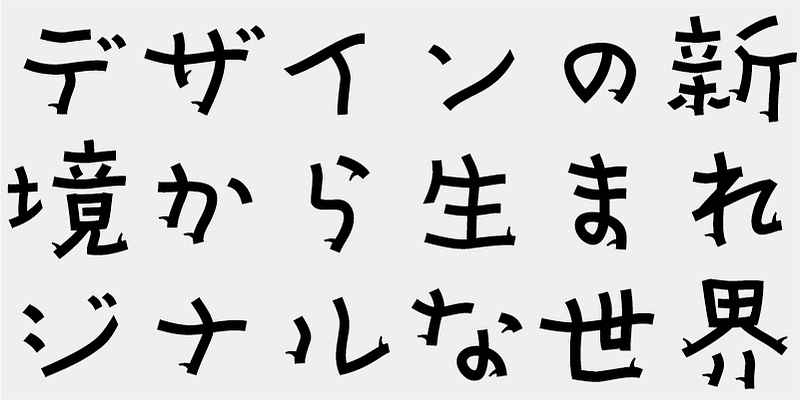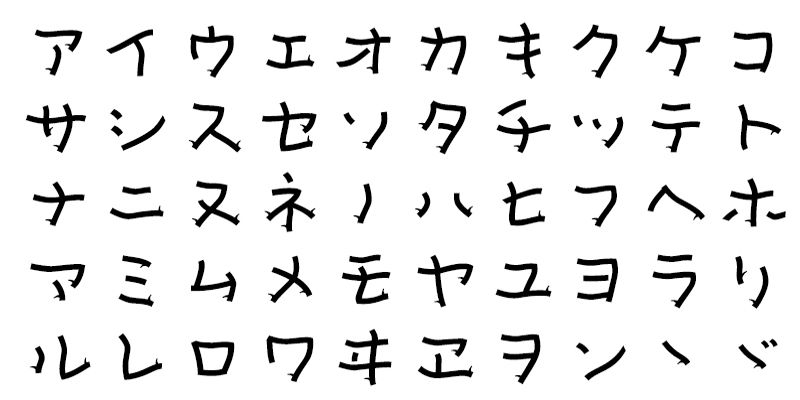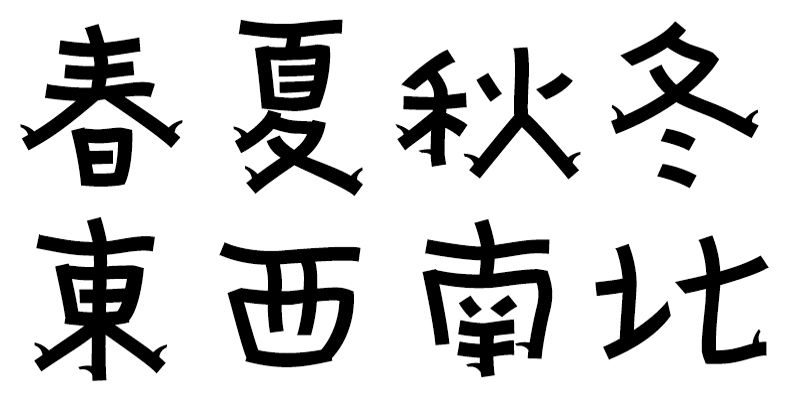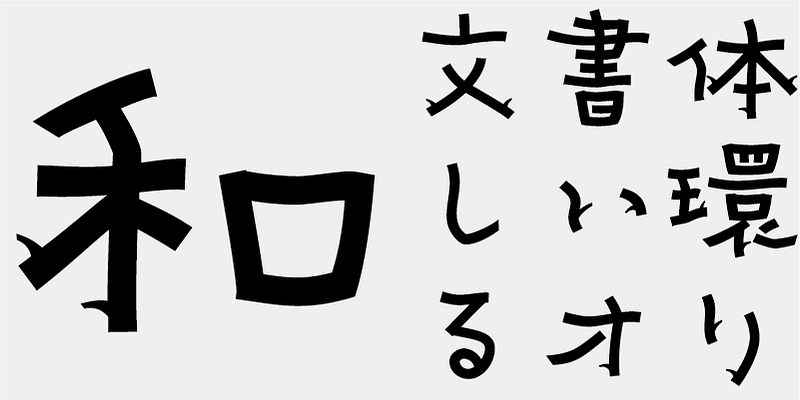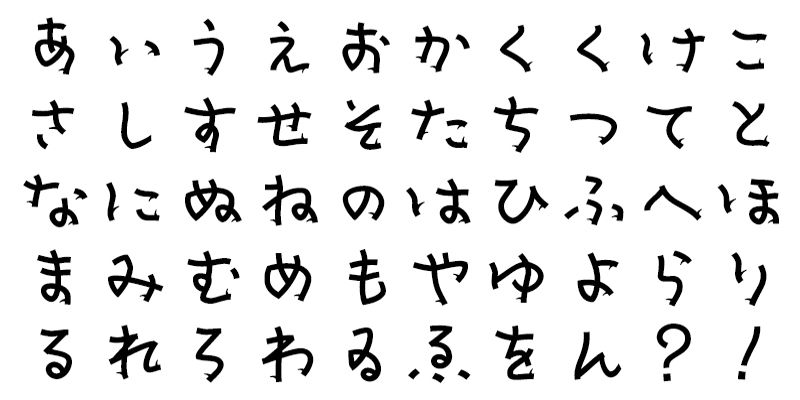
This typeface is based on characters hand-written with a brush. When this typeface was created, it was intended to be like casual clothes, not formal dress, like homemade meals, not haute cuisine.